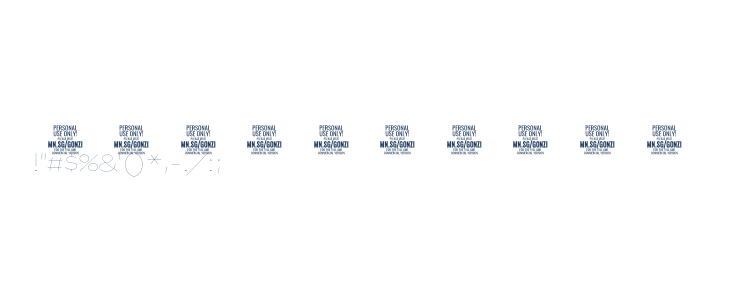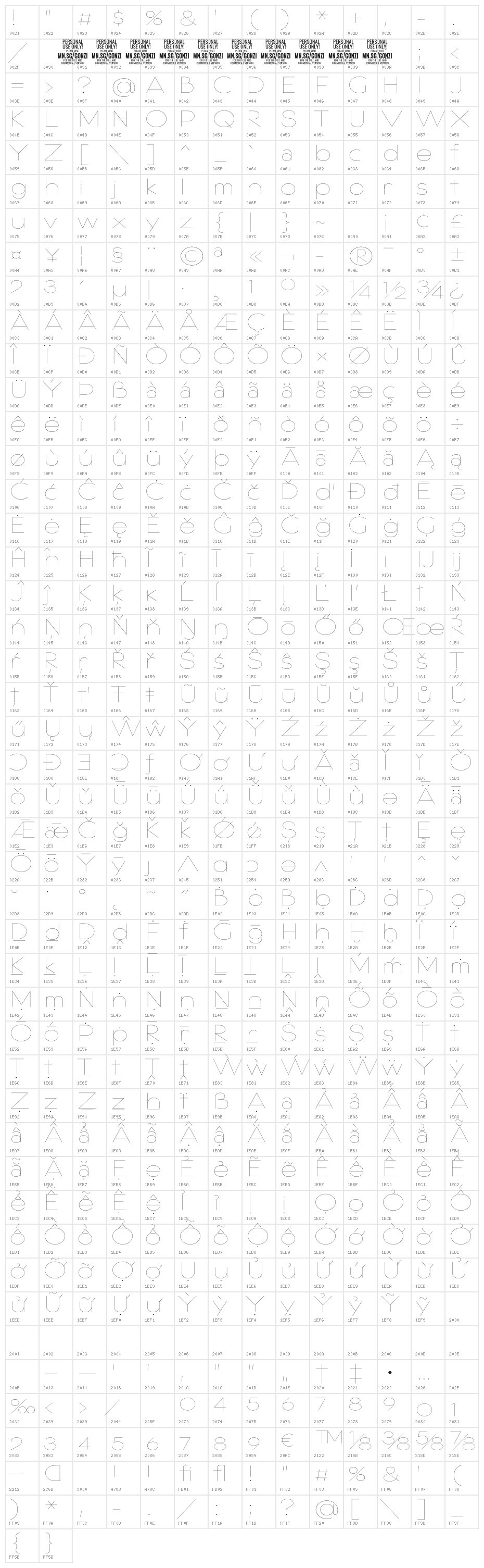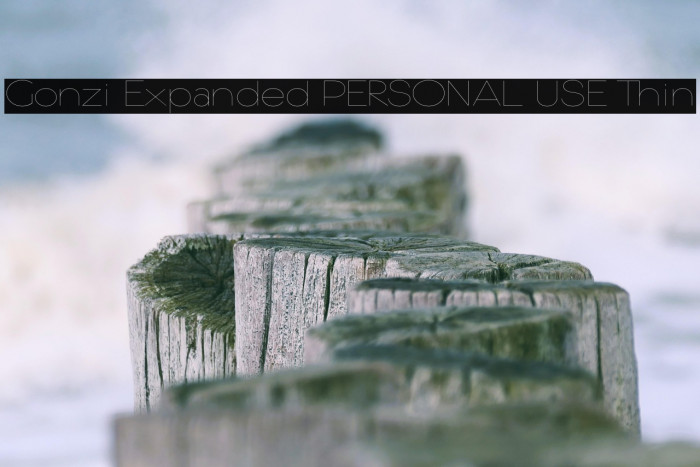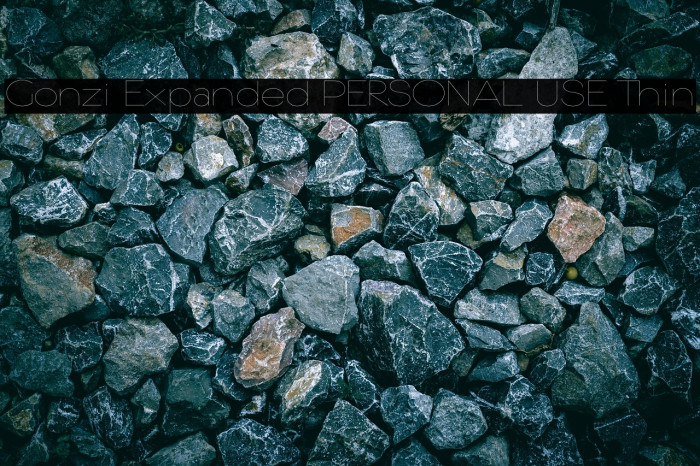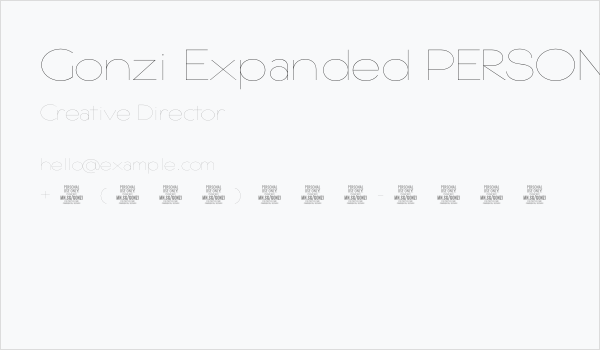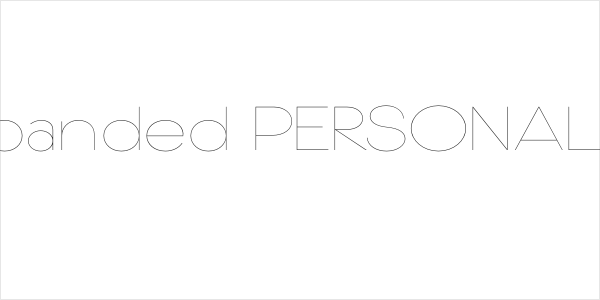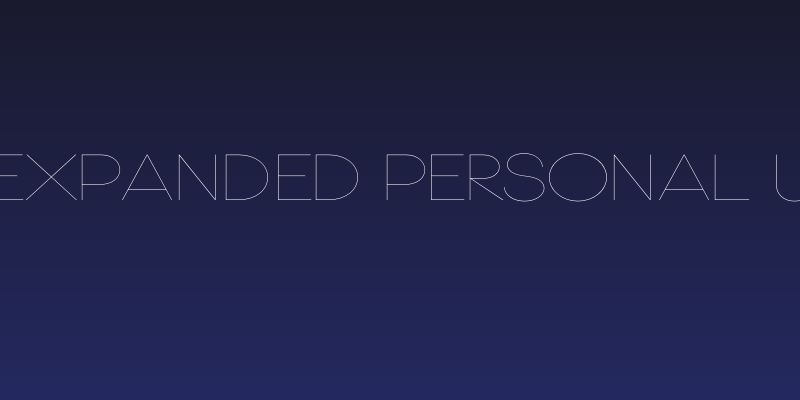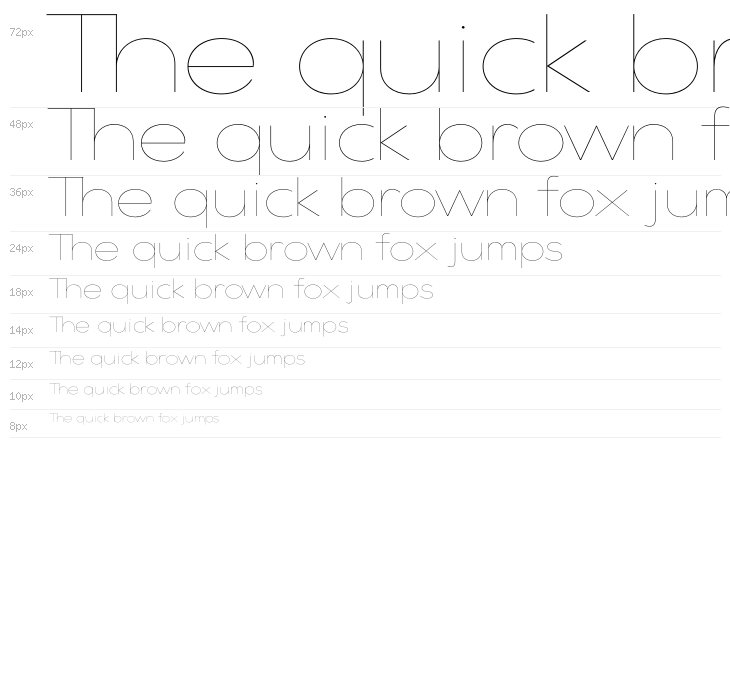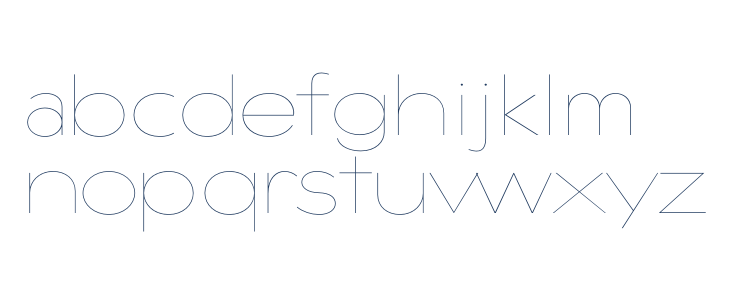
Gonzi Expanded PERSONAL USE Thin Font
This font features a sleek and modern design with ultra-thin lines, creating a minimalist and elegant appearance. The characters are geometrically structured, offering a clean and sophisticated look. The uppercase and lowercase letters maintain a consistent style, with smooth curves and sharp angles that enhance readability. The numbers and special characters follow the same design principles, ensuring uniformity across all glyphs. This font is ideal for projects that require a contemporary and stylish touch.